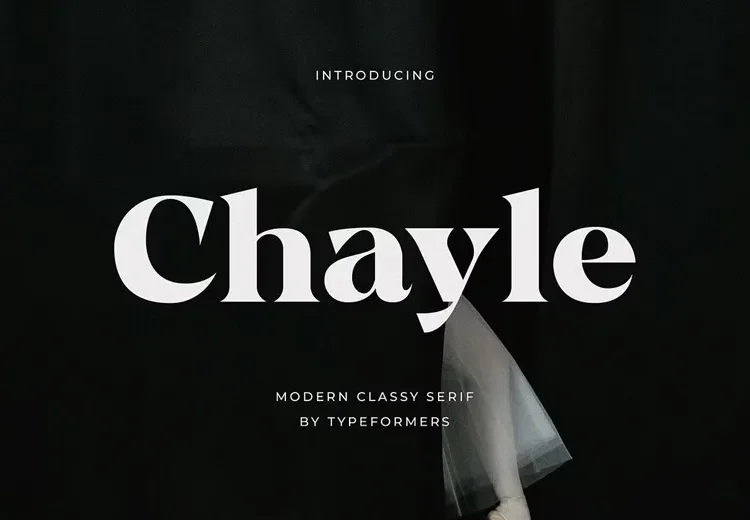
Chayle Font
Chayle is a clean and cute serif font that exudes charm and elegance, making it an excellent choice for various design applications. Its well-defined letterforms and subtle curves lend a sense of warmth and friendliness, making it suitable for headings, logos, and branding projects. Whether you’re crafting a new identity for a business or creating promotional materials, Chayle helps convey a welcoming vibe that attracts attention.
This versatile font works wonderfully in magazines, where its stylish aesthetic can enhance editorial layouts and capture the reader’s eye. The refined design of Chayle ensures readability while still making a bold statement, which is essential for high-quality publications. Its aesthetic can elevate any design project, from traditional to contemporary themes, giving you the flexibility you need.
In addition to print media, Chayle is also a perfect fit for packaging and invitations. Its cute yet sophisticated style adds a unique touch that can make products stand out on shelves or create memorable event invitations. The font’s design allows it to pair beautifully with various design elements, making it a great choice for creative projects that require a distinctive look.